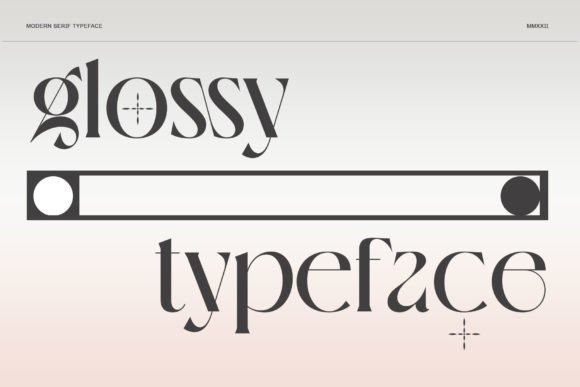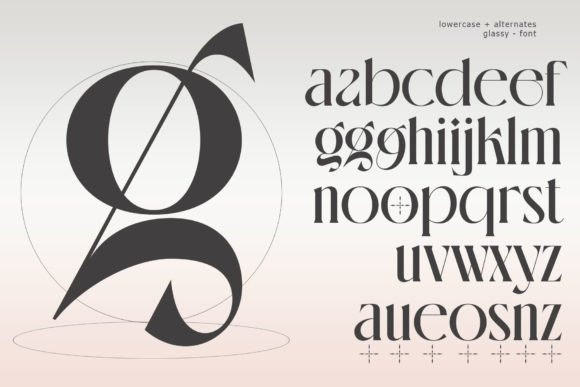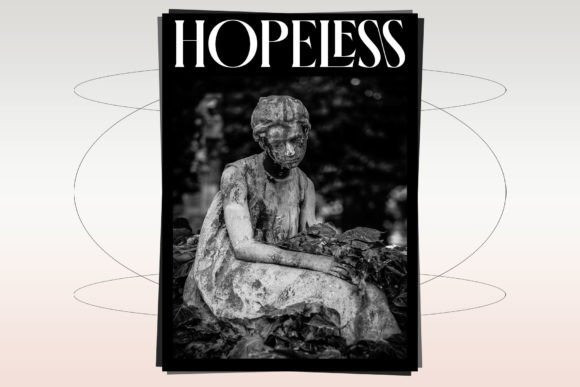
Glossy Font
Glossy is a special, vintage serif font. Stylish and elegant, this font will be a great addition to your fonts library as it has the potential to elevate any creation to its highest levels.